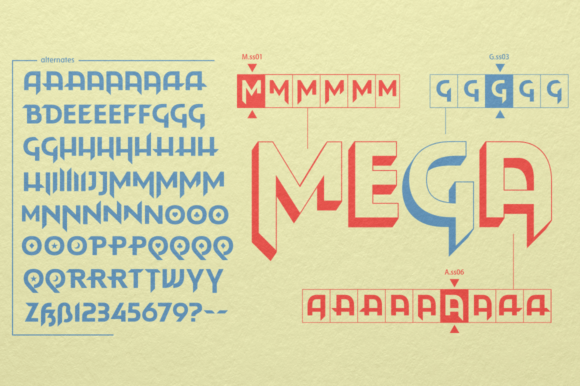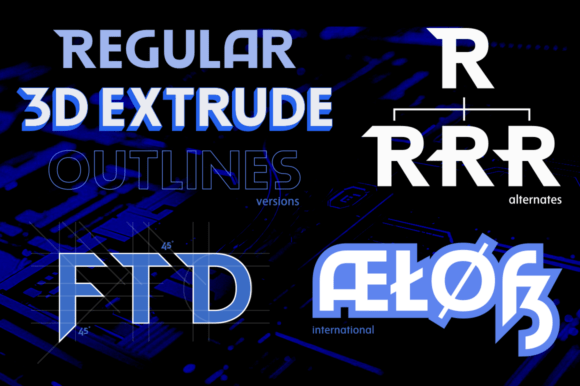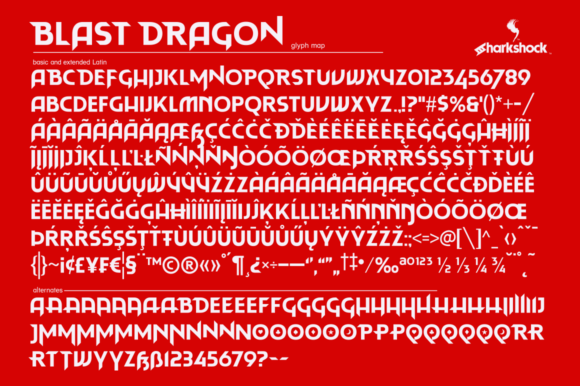
Unleash the Power of Blast Dragon Font: A Futuristic Cyberpunk Masterpiece 🐉
In the realm of typography, few fonts capture the essence of a cyberpunk dystopia as perfectly as Blast Dragon. This edgy, all-caps display font is designed to evoke a sense of high-tech, vigorous energy, making it an ideal choice for designers and crafters looking to add a touch of futuristic rebellion to their projects.
Design and Aesthetic
Blast Dragon masterfully blends bold, condensed geometry with sharp, unexpected extensions and 45-degree angled terminals, giving the glyphs a blade-like, dynamic appearance. The font’s aesthetic suggests speed, power, and a futuristic, rebellious spirit, making it perfect for projects that require a bold and attention-grabbing look.
The design of Blast Dragon is characterized by its unique features, such as:
- Bold, condensed geometry: The font’s letters are designed to be compact and sturdy, conveying a sense of strength and resilience.
- Sharp, unexpected extensions: The extensions and terminals of the letters are sharp and angled at 45 degrees, giving the font a dynamic and edgy feel.
- Blade-like ascenders and descenders: Many of the ascenders and descenders in Blast Dragon extend outward in a blade-like fashion, adding to the font’s sense of movement and energy.
Glyphs and Characters
Blast Dragon’s glyphs are designed to be highly legible, even at small sizes. The font features a range of characters, including:
- Uppercase characters: Most uppercase characters feature lines that terminate at a 45-degree angle, giving the font a consistent and cohesive look.
- Numbers: The numbers in Blast Dragon are designed to match the font’s overall aesthetic, with 45-degree angled terminals and bold, condensed geometry.
- Glyphs such as A or 7: These glyphs showcase the font’s unique design features, such as sharp extensions and blade-like terminals.
Use Cases
Blast Dragon is a versatile font that can be used in a wide range of projects, including:
- Sports logos: The font’s bold, dynamic aesthetic makes it perfect for sports logos that require a strong and attention-grabbing look.
- Anime posters: Blast Dragon’s futuristic, cyberpunk aesthetic makes it a great choice for anime posters that require a bold and edgy look.
- Video game titles: The font’s design is ideal for eye-catching video game titles that require a strong and dynamic look.
- Esports team branding: Blast Dragon’s bold, futuristic aesthetic makes it perfect for esports team branding that requires a strong and competitive look.
- Dark synthwave music covers: The font’s cyberpunk aesthetic makes it a great choice for dark synthwave music covers that require a bold and edgy look.
- Sci-fi movie posters: Blast Dragon’s futuristic design makes it perfect for sci-fi movie posters that require a strong and attention-grabbing look.
- Web graphics: The font’s versatility and legibility make it a great choice for web graphics that require a bold and dynamic look.
Blast Dragon is a powerful and versatile font that is perfect for designers and crafters looking to add a touch of futuristic rebellion to their projects. Its unique design features, bold aesthetic, and wide range of use cases make it an ideal choice for a variety of applications. Whether you’re looking to create a sports logo, anime poster, or video game title, Blast Dragon is sure to deliver a bold and attention-grabbing look that will leave a lasting impression.